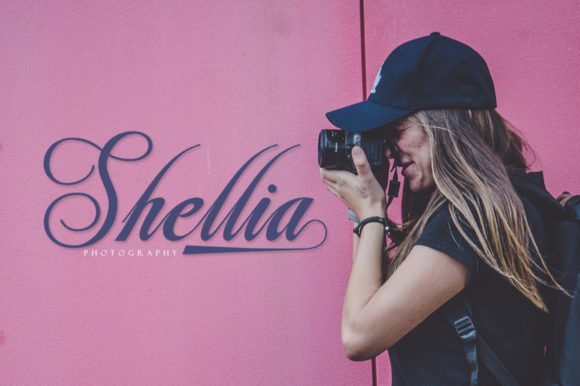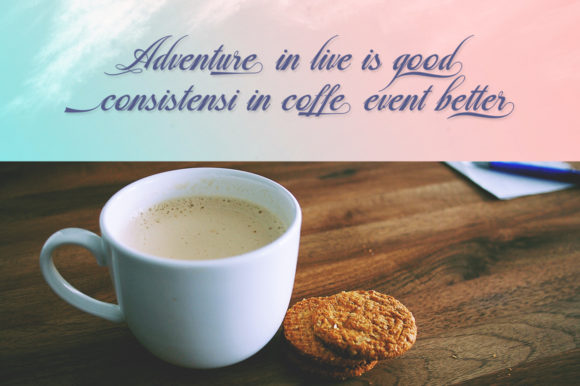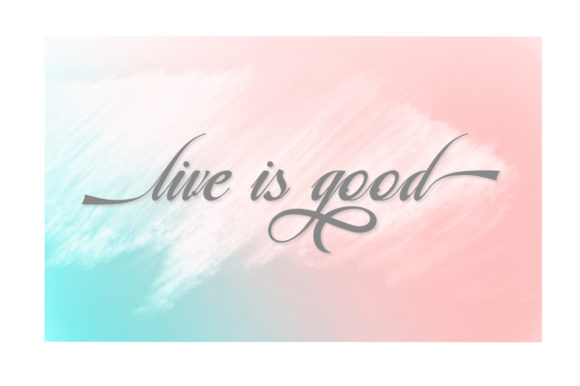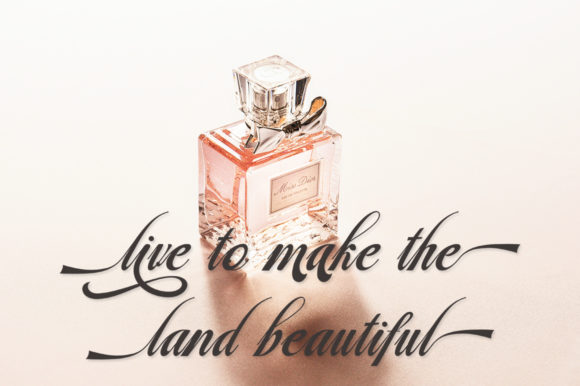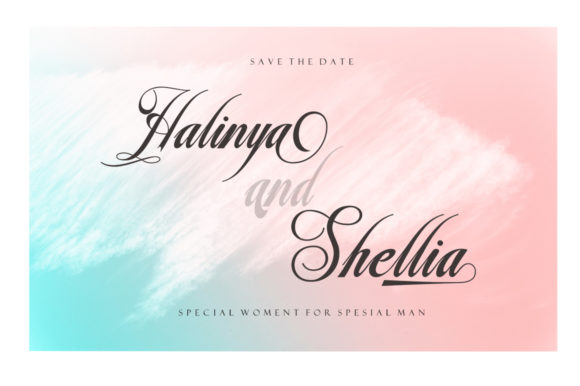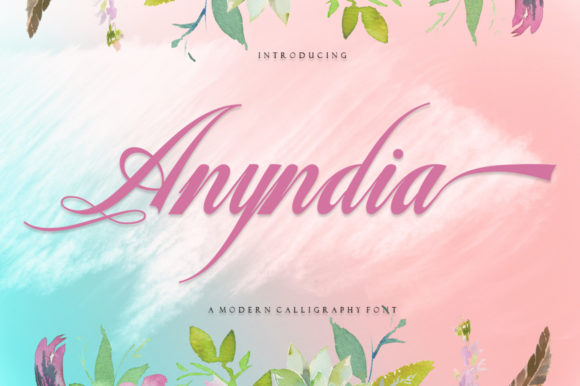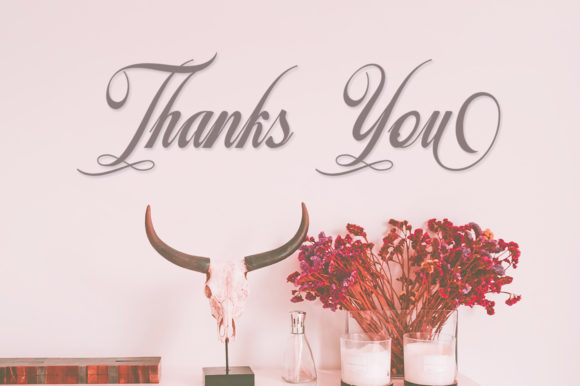
HomeScript FontsAnyndia Font Script Fonts Anyndia Font FacebookXPinterestWhatsApp Anyndia Font Poster 2 Anyndia Font Poster 3 Anyndia Font Poster 4 Anyndia Font Poster 5 Anyndia Font Poster 6 Anyndia Font Poster 7 Anyndia Font Poster 8 About Anyndia Font Anyndia is an elegant and modern script font with romantic style. Fall in love with its playful look & feel! DOWNLOAD ON CREATIVE FABRICAThis font is sold and delivered by Creative Fabrica. Font Canyon may earn a commission if you buy through this link. People also explored Troglen Sans Font Kilatand Font Sweet Dream Font Rising Font Wife Font Misty Cotton Modern Calligraphy Font Machine Killer Font Aumon Font Cinnabar Brush 341 0 TagsAnyndia Font Previous articleMaladive FontNext articleCarllis Font LEAVE A REPLY Cancel reply Comment: Please enter your comment! Name:* Please enter your name here Email:* You have entered an incorrect email address! Please enter your email address here Website: Save my name, email, and website in this browser for the next time I comment. Personal Use Free Baby Love Personal Use Free Read more about this font Bashira Personal Use Free Read more about this font Zero Hour Personal Use Free Read more about this font Sunshine Tropical Font Personal Use Free Read more about this font BLOG Exploring Font Trends Shaping Communication in the Digital Era Fonts, like all design elements, are subject to trends. They play a crucial role in communicating a brand's personality,... To increase your work productivity, choose the most readable fonts. Top 10 Handwritten Fonts That Elevate Your Designs Best Fonts for YouTube Videos: Make Your Thumbnails Stand Out